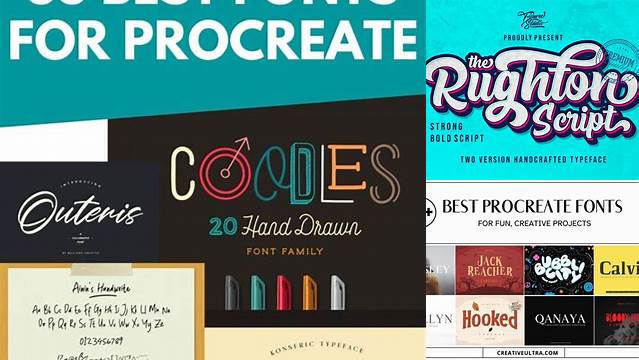
Best Procreate Fonts: Free Downloads For Artists
Hey guys! Finding the perfect font can really elevate your Procreate artwork. Whether you're designing logos, creating stunning illustrations, or just adding text to your pieces, the right font makes all the difference. And the best part? There are tons of amazing fonts available for free! This article will dive deep into the best Procreate fonts you can download for free, exploring various styles and how to use them in your projects. Let's get started and find the perfect typography to match your artistic vision!
1. Free Procreate Fonts for Lettering
When it comes to lettering in Procreate, you need fonts that are expressive and unique. The best Procreate fonts for lettering often have a hand-drawn feel, adding a personal touch to your artwork. Think about fonts with varying line weights, interesting swashes, and a natural flow. A good lettering font should feel like it was written by hand, giving your designs an authentic and artistic flair. Exploring different font styles, such as calligraphy-inspired or modern brush scripts, can help you achieve the desired look. Remember, the key is to choose a font that complements your lettering style and enhances the overall message. So, go ahead and experiment with different free Procreate fonts to find the perfect match for your next masterpiece. Whether you're creating a motivational quote or designing a custom logo, the right font will make your lettering truly stand out. You can also consider using layered fonts to add depth and dimension to your lettering, making it even more visually appealing. Remember to consider the legibility of the font as well, ensuring that your message is clear and easy to read, even in smaller sizes.
2. Best Script Fonts for Procreate Free
Script fonts are fantastic for adding elegance and personality to your Procreate projects. The best script fonts for Procreate, especially the free ones, mimic handwriting, bringing a touch of sophistication to invitations, logos, and quotes. Imagine flowing, cursive letters gracing your artwork – that's the magic of a well-chosen script font. When selecting a script font, consider the overall tone you want to convey. A formal script might be perfect for wedding invitations, while a playful script could be ideal for a children's book illustration. There are countless options available, from classic calligraphy styles to modern, quirky scripts. Make sure the font you choose is not only beautiful but also legible. Overly elaborate scripts can sometimes be difficult to read, especially in smaller sizes. So, experiment with different styles and find the perfect balance between elegance and clarity. Don't be afraid to mix and match script fonts with other font styles for a dynamic and visually appealing design. Pairing a script font with a simple sans-serif font can create a striking contrast that draws the eye. With so many free Procreate fonts available, you're sure to find the perfect script to elevate your artwork. So, start exploring and let your creativity flow!
3. Top Calligraphy Fonts for Procreate Free
If you're aiming for a touch of classic beauty and sophistication, calligraphy fonts are the way to go in Procreate. The top calligraphy fonts for Procreate, available for free, can transform your digital art into timeless masterpieces. Calligraphy fonts evoke the elegance of traditional handwriting, making them perfect for invitations, certificates, and any project that calls for a refined touch. These fonts often feature flowing strokes, delicate curves, and a sense of artistry that's hard to replicate with other styles. When selecting a calligraphy font, pay attention to the details. The thickness of the strokes, the shape of the serifs, and the overall rhythm of the letters all contribute to the font's character. Experiment with different calligraphy styles, from formal Copperplate to more modern and whimsical scripts. Consider the context of your project and choose a font that fits the occasion. For instance, a formal calligraphy font might be ideal for a wedding invitation, while a more relaxed script could be perfect for a greeting card. Remember, legibility is key, even with calligraphy fonts. Make sure your message is clear and easy to read, especially in smaller sizes. With the abundance of free Procreate fonts out there, you can easily find the perfect calligraphy font to add a touch of elegance to your artwork. So, go ahead and explore the world of calligraphy and let your creativity flourish!
4. Best Sans Serif Fonts for Procreate Free
For a clean, modern look in your Procreate designs, sans serif fonts are your best friend. The best sans serif fonts for Procreate, offered for free, provide a sleek and contemporary feel, perfect for logos, body text, and any project where clarity is key. Unlike serif fonts, sans serifs don't have the small decorative strokes at the ends of the letters, giving them a streamlined appearance. This makes them incredibly versatile and easy to read, both on screen and in print. When choosing a sans serif font, consider the overall tone you want to convey. Some sans serifs have a minimalist, almost industrial feel, while others are more rounded and friendly. Think about the weight of the font as well. A bold sans serif can make a strong statement, while a lighter weight is ideal for smaller text or when you want a more subtle look. Sans serif fonts are particularly effective for headlines and subheadings, as they grab attention without being overwhelming. They also work well in body text, providing excellent readability. With so many free Procreate fonts available in the sans serif category, you can easily find the perfect one to complement your design. So, dive in and discover the power of clean, modern typography!
5. Top Serif Fonts for Procreate Free
Serif fonts bring a touch of tradition and authority to your Procreate projects. The top serif fonts for Procreate, available for free, feature those little decorative strokes at the ends of the letters, giving them a classic and polished look. Serif fonts are often associated with printed materials like books and newspapers, but they can also be incredibly effective in digital designs. When selecting a serif font, consider the overall mood you want to create. Some serifs have a formal and elegant feel, while others are more warm and inviting. Think about the weight and spacing of the letters as well. A bold serif can make a strong statement, while a lighter weight is ideal for body text. Serif fonts are excellent for headlines, subheadings, and body text, providing a sense of readability and sophistication. They can also be used effectively in logos and branding materials, conveying a sense of trustworthiness and professionalism. With a wide variety of free Procreate fonts in the serif category, you're sure to find the perfect one to enhance your artwork. So, explore the world of serifs and add a touch of classic elegance to your designs!
6. Best Display Fonts for Procreate Free
When you need a font that really grabs attention, display fonts are the way to go in Procreate. The best display fonts for Procreate, which you can often find for free, are designed to make a statement. These fonts are all about personality and visual impact, making them perfect for headlines, posters, and any project where you want to stand out. Display fonts come in a huge range of styles, from bold and geometric to whimsical and hand-drawn. The key is to choose a font that reflects the tone and message of your design. A playful display font might be perfect for a children's book illustration, while a more dramatic font could be ideal for a movie poster. Remember, display fonts are meant to be eye-catching, so don't be afraid to experiment with bold colors and unusual letterforms. However, it's also important to use them sparingly. Too many display fonts can clutter a design and make it difficult to read. Save them for key elements and pair them with a more neutral font for body text. With so many free Procreate fonts in the display category, you can easily find the perfect one to make your artwork shine. So, go ahead and explore the world of display fonts and let your creativity run wild!
7. Top Handwriting Fonts for Procreate Free
For a personal and authentic touch in your Procreate art, handwriting fonts are an excellent choice. The top handwriting fonts for Procreate, many available for free, mimic the look of real handwriting, adding a human element to your digital creations. These fonts are perfect for adding a personal touch to invitations, notes, and any project where you want to convey warmth and sincerity. Handwriting fonts come in a variety of styles, from neat and legible to messy and expressive. When choosing a handwriting font, consider the overall tone you want to create. A clean and simple handwriting font might be ideal for a professional document, while a more whimsical script could be perfect for a greeting card. Think about the size and spacing of the letters as well. Some handwriting fonts are designed to be used in larger sizes, while others work well in smaller text. It's also important to ensure that the font is legible, even if it's meant to look handwritten. With the vast selection of free Procreate fonts in the handwriting category, you can easily find the perfect one to add a personal touch to your artwork. So, explore the world of handwriting fonts and let your creativity flow!
8. Free Procreate Fonts for iPad
Using Procreate on your iPad opens up a world of creative possibilities, and finding the right fonts is key to enhancing your designs. There are tons of free Procreate fonts for iPad that you can easily download and use in your projects. These fonts are designed to work seamlessly with Procreate, allowing you to add text, captions, and other typographic elements to your artwork. Whether you're creating illustrations, logos, or social media graphics, having a variety of fonts at your fingertips is essential. You can find free Procreate fonts in a wide range of styles, from elegant scripts to bold sans serifs. Experiment with different fonts to see how they complement your artwork and convey your message. Remember, the right font can make all the difference in the overall look and feel of your design. So, take some time to explore the many free font options available for Procreate on your iPad and find the perfect typography to bring your ideas to life!
9. Best Free Fonts for Procreate Lettering
Lettering in Procreate is an art form in itself, and the font you choose can significantly impact the final result. The best free fonts for Procreate lettering offer a variety of styles to suit any project. These fonts often have a hand-drawn feel, adding a personal touch to your artwork. When selecting a font for lettering, consider the overall mood you want to convey. A playful script might be perfect for a children's illustration, while a more elegant calligraphy font could be ideal for a wedding invitation. Think about the legibility of the font as well. While it's important to choose a font that's visually appealing, it should also be easy to read. Experiment with different font sizes, weights, and colors to see what works best for your design. Remember, the right font can elevate your lettering and make your artwork truly stand out. So, explore the many free Procreate fonts available for lettering and find the perfect typography to express your creativity!
10. Top Free Script Fonts for Procreate
Script fonts add a touch of elegance and personality to your Procreate artwork, and luckily, there are plenty of fantastic top free script fonts for Procreate to choose from. These fonts mimic the look of handwriting, bringing a sense of sophistication to your designs. Whether you're creating invitations, logos, or social media graphics, a well-chosen script font can make all the difference. When selecting a script font, consider the overall tone you want to convey. A formal script might be perfect for a wedding invitation, while a more casual script could be ideal for a blog header. Think about the legibility of the font as well. Overly elaborate scripts can sometimes be difficult to read, especially in smaller sizes. Experiment with different font pairings to create a dynamic and visually appealing design. Pairing a script font with a simple sans serif font can create a striking contrast that draws the eye. With so many free Procreate fonts available in the script category, you're sure to find the perfect one to elevate your artwork. So, start exploring and let your creativity flow!